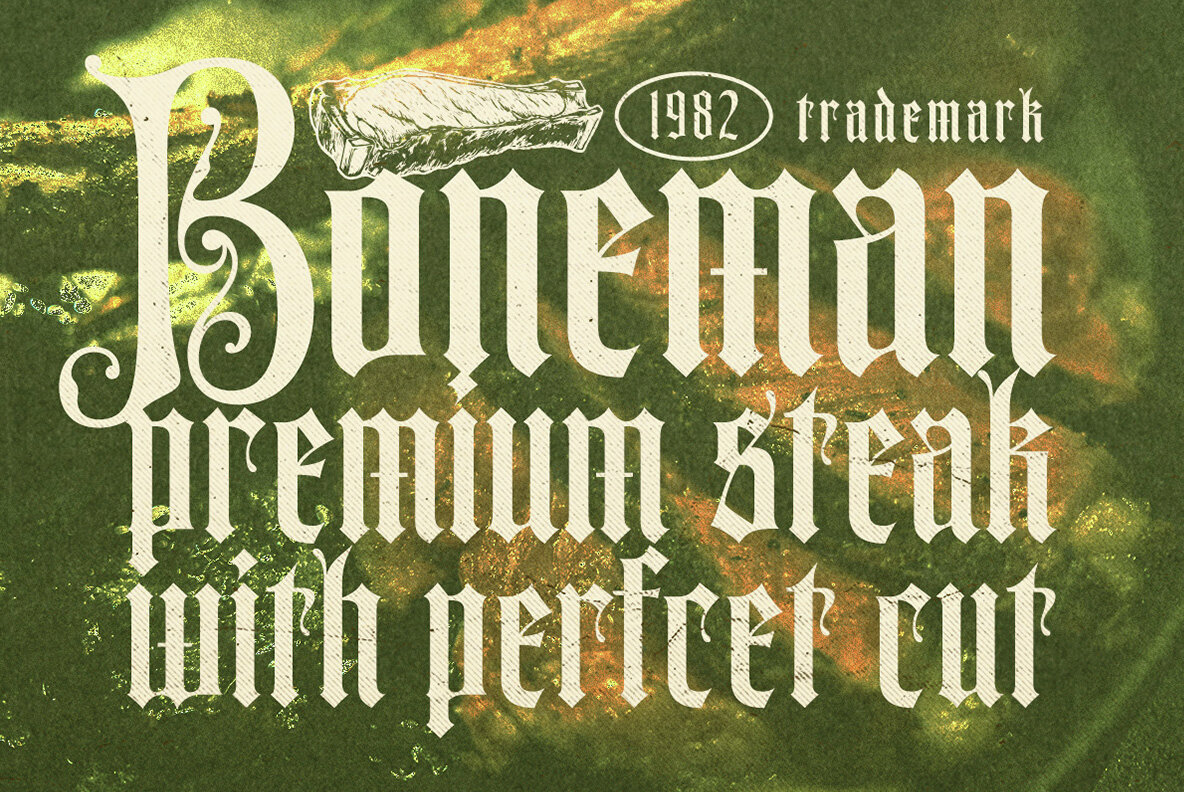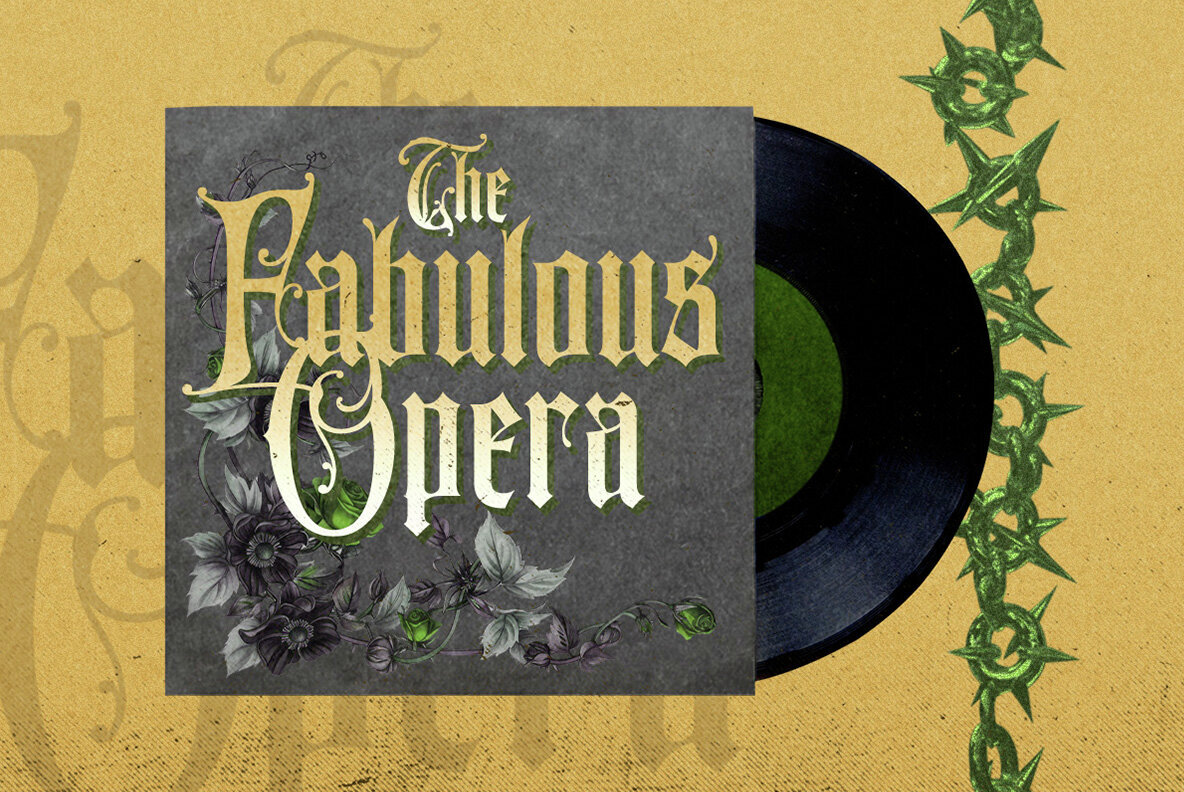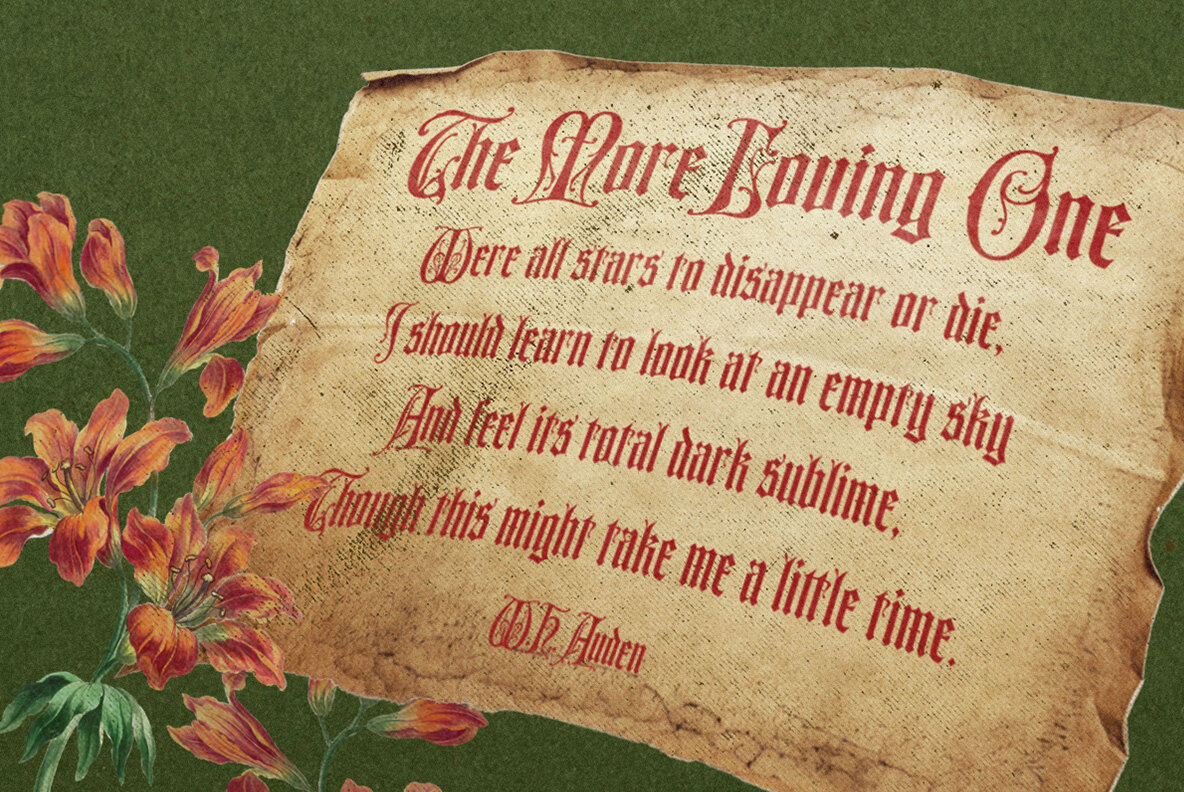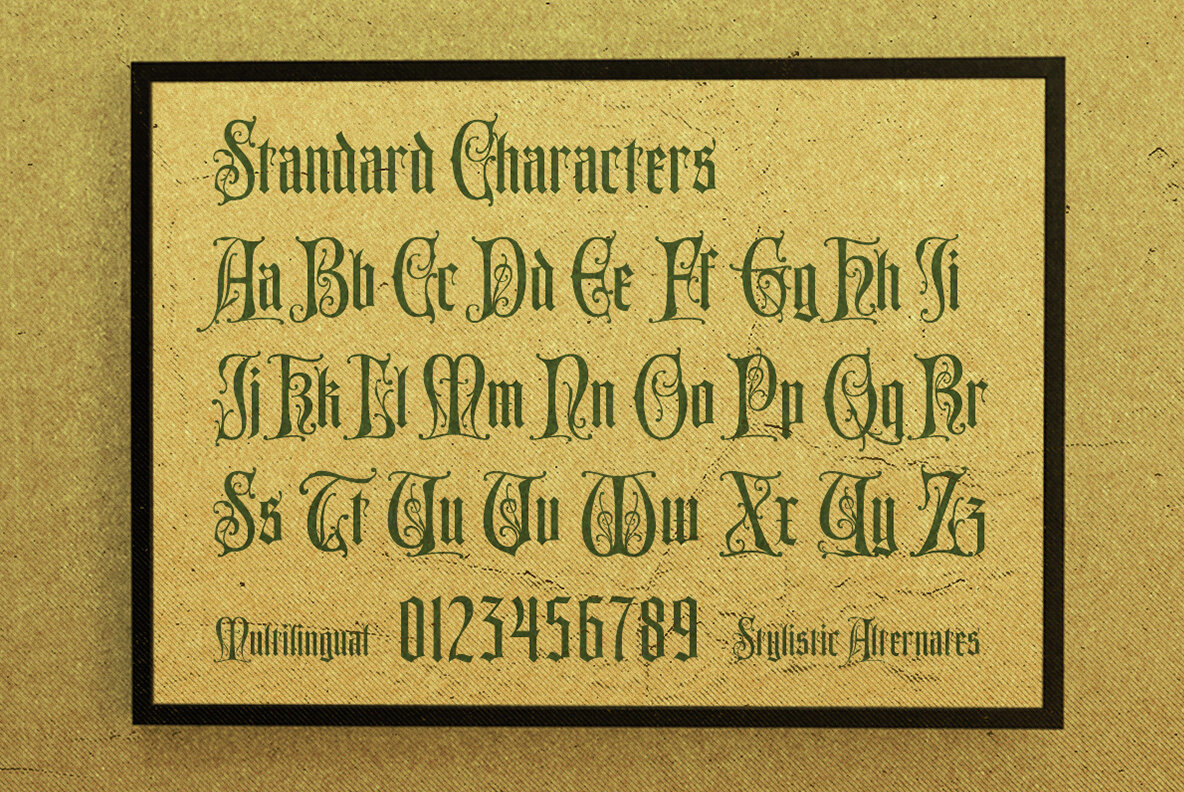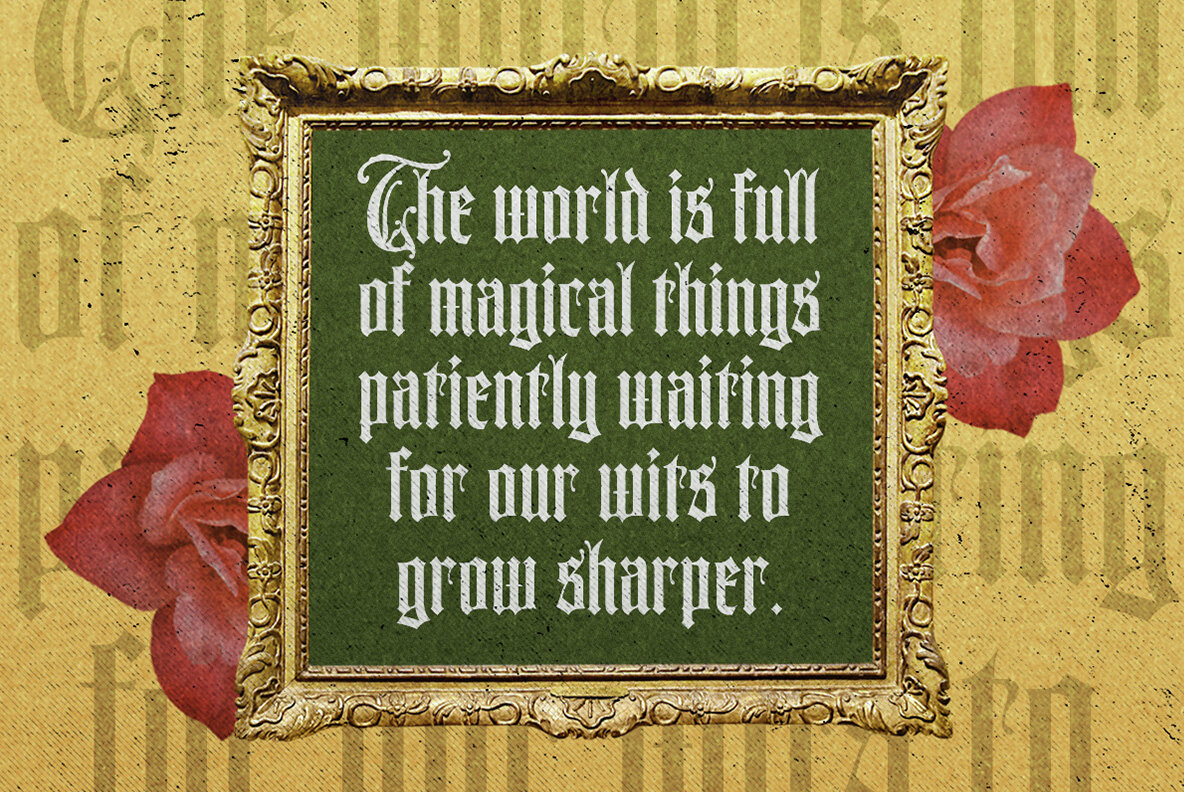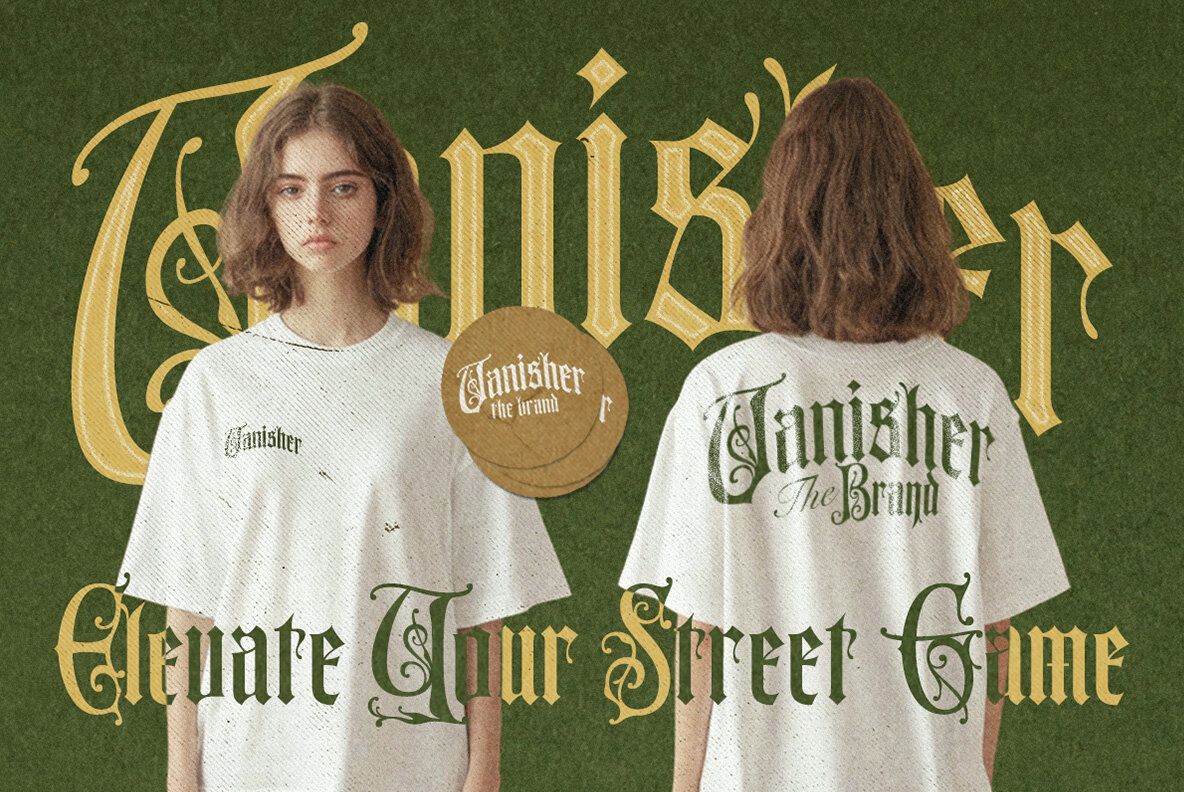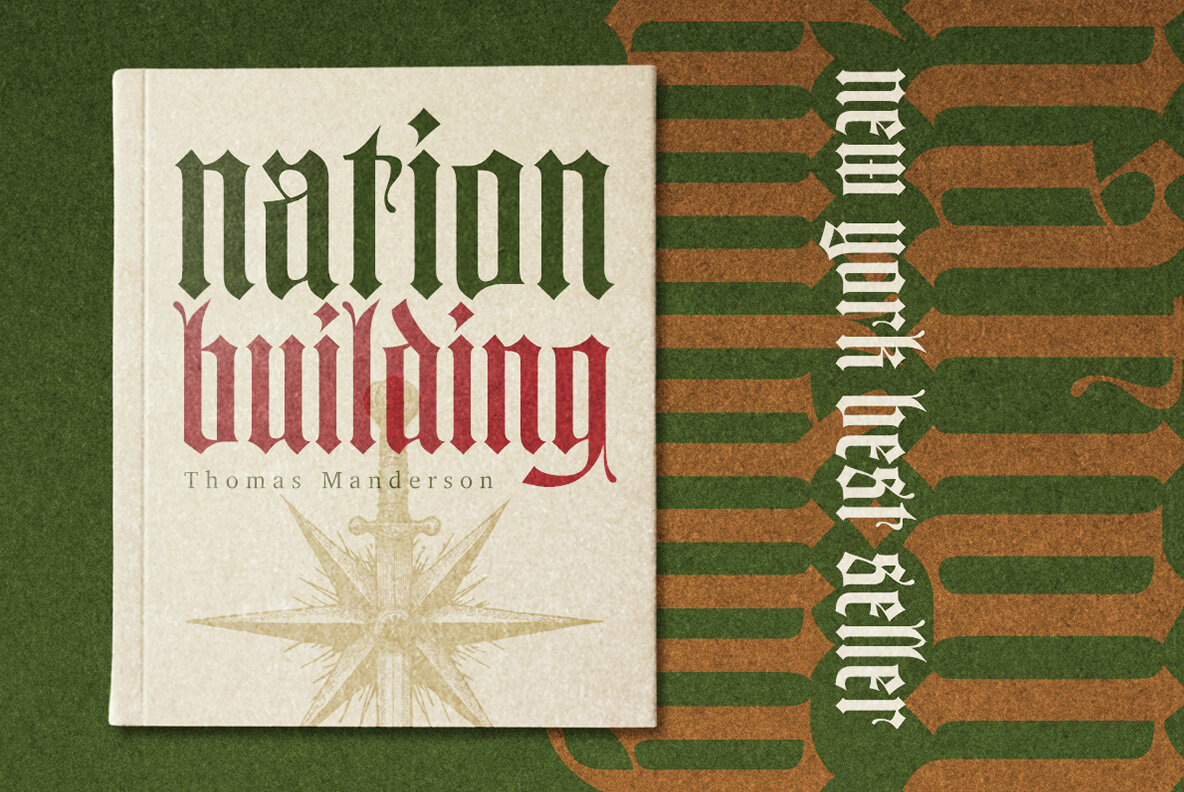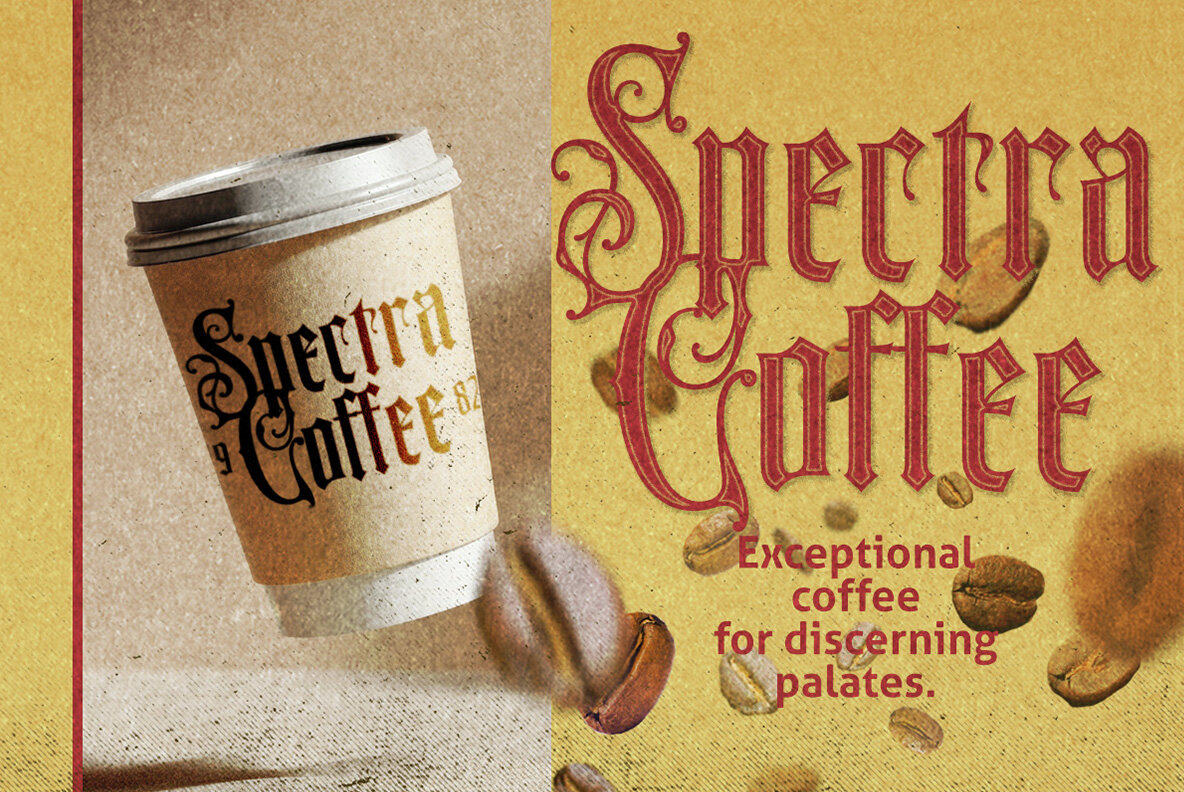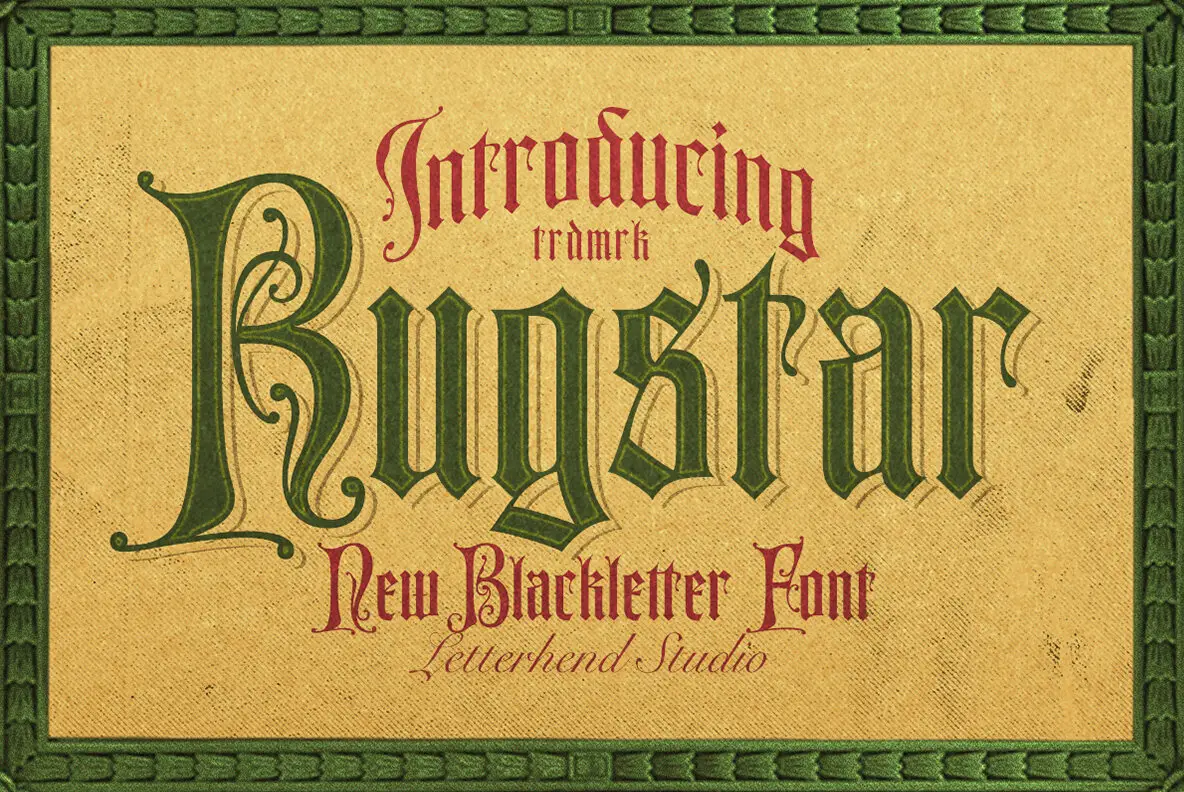
Rugstar Font
Rugstar Regular
Immerse yourself in the captivating allure of Rugstar, a meticulously crafted blackletter typeface that embodies classic calligraphy and medieval charm. With its striking tall letterforms, ornate serifs, and dramatic flair, Rugstar radiates an air of mystery, authority, and elegance, making it ideal for a range of design projects. We recommend using software that supports OpenType features and Glyphs panels, such as Adobe apps and Corel Draw, to fully explore the diverse possibilities Rugstar offers. Its distinctive style will enhance any project looking for a bold and timeless gothic tone.Rugstar Typeface: Timeless Gothic Elegance